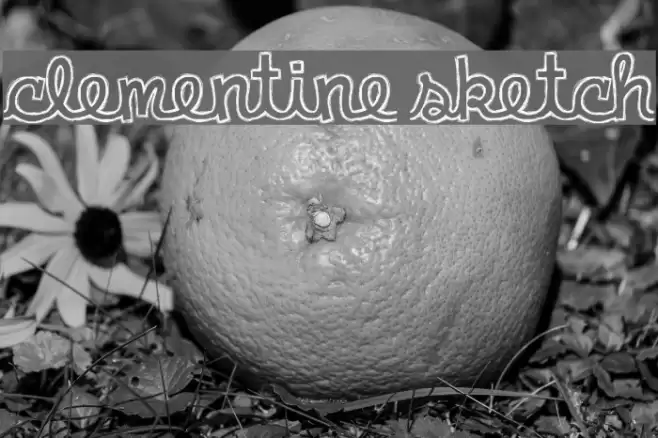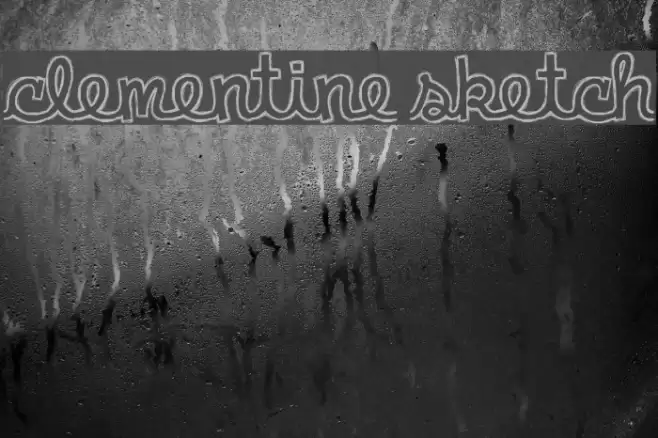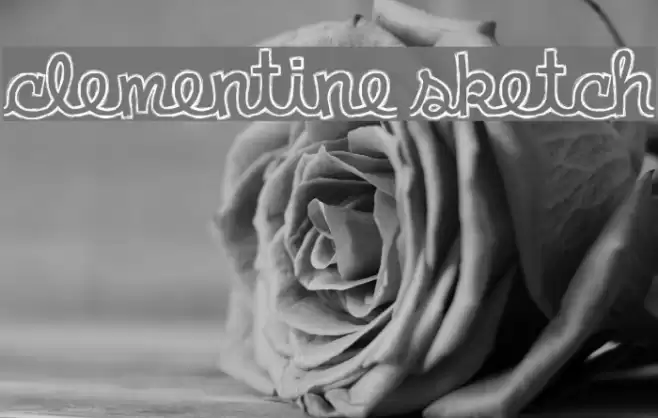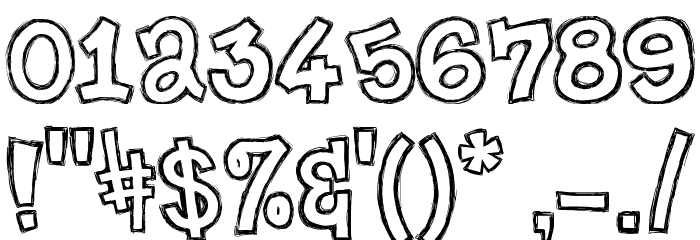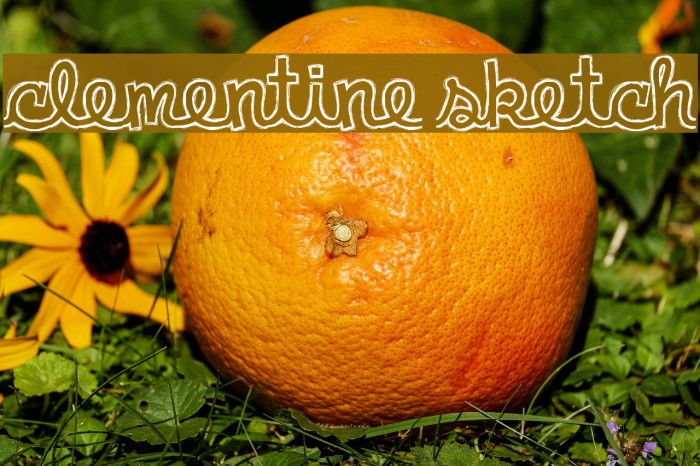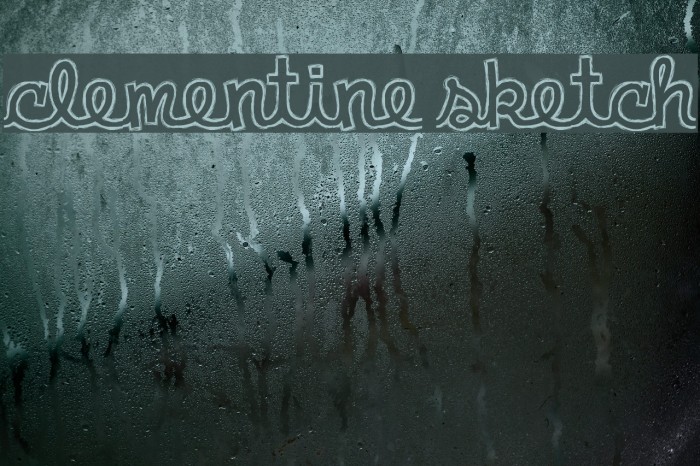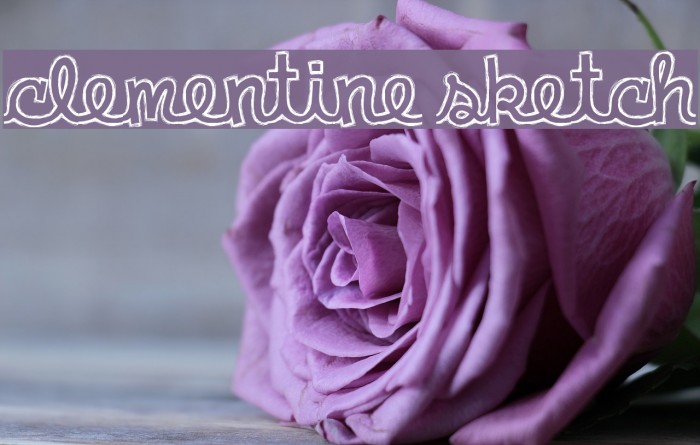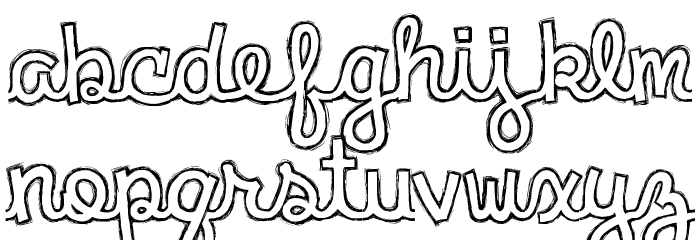
clementine sketch Font
clementine sketch Description
This playful and whimsical font features a hand-drawn, sketch-like appearance with a casual and friendly vibe. The letters are characterized by their rounded and slightly irregular shapes, giving them a unique and artistic feel. The strokes are bold and consistent, creating a strong visual impact. The font includes both uppercase and lowercase letters, as well as numbers and a variety of special characters. Its informal style makes it perfect for creative projects that require a touch of personality and charm.
A playful, hand-drawn font with a sketch-like, artistic style from Handwritten fonts.
- Proposed Projects: Ideal for children's books, greeting cards, playful branding, and DIY projects.
- Use Case: Headlines, Logos, Creative projects